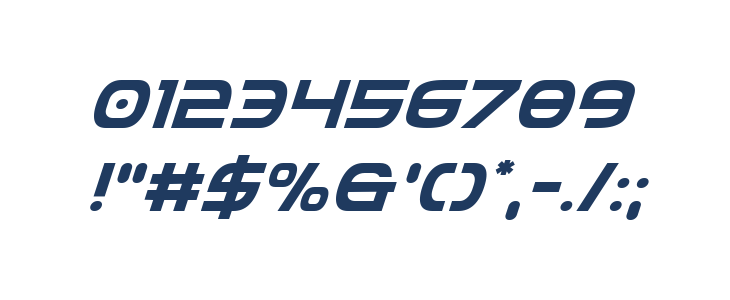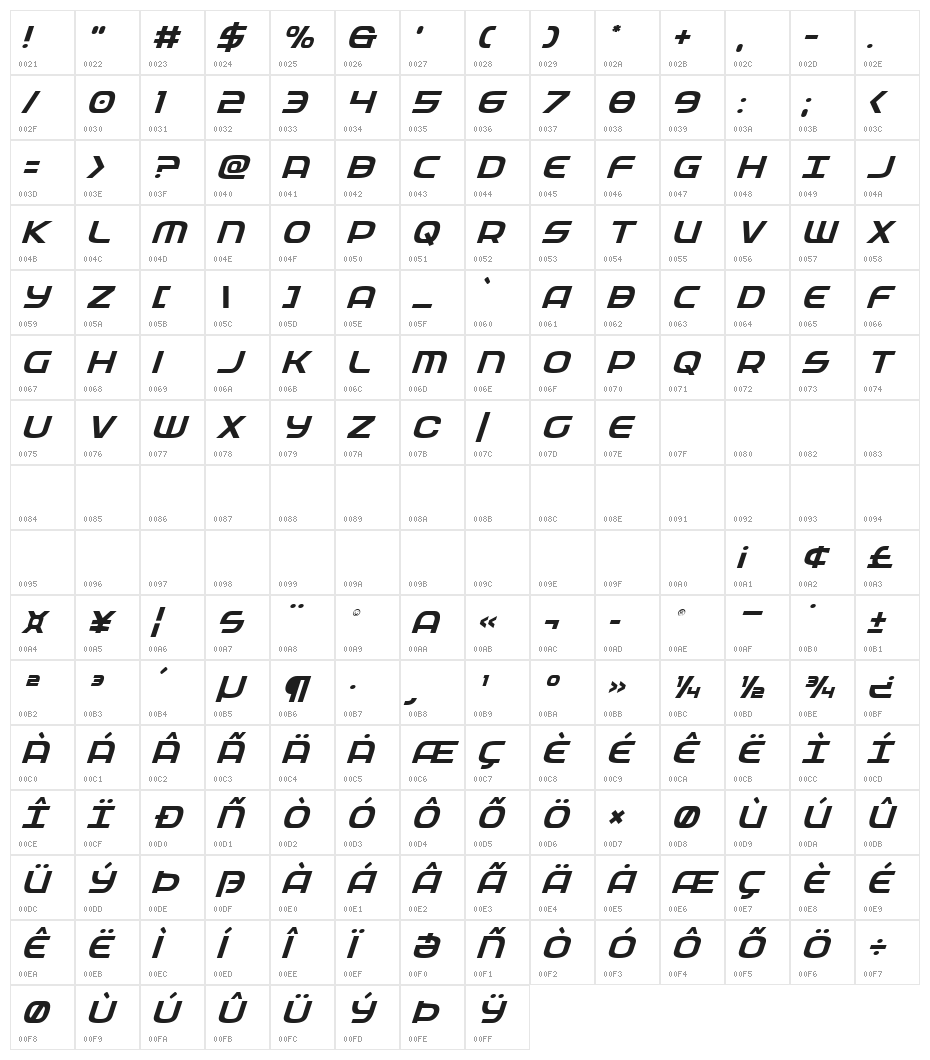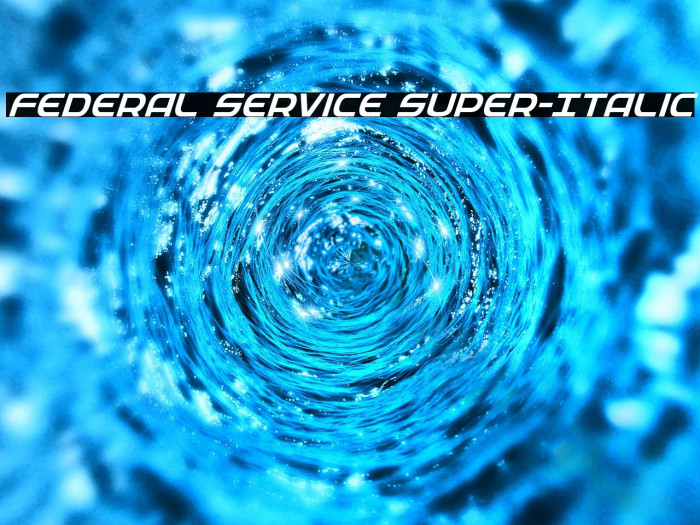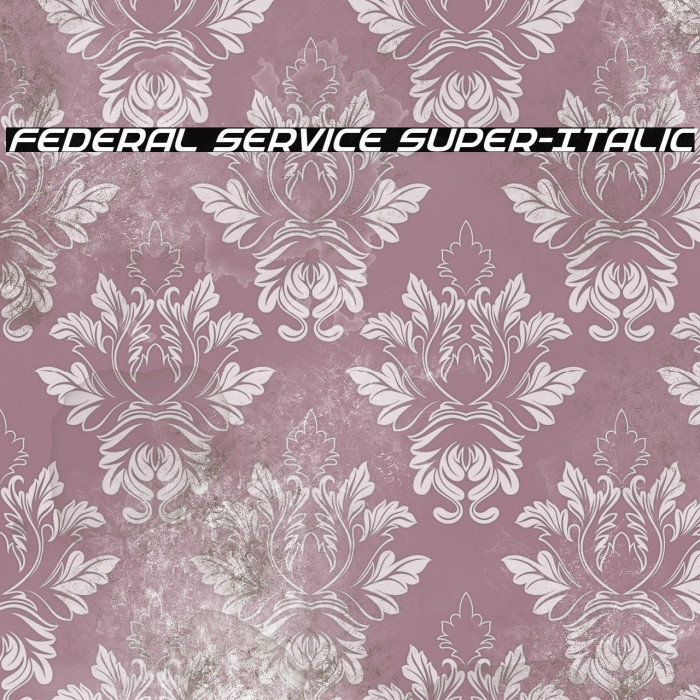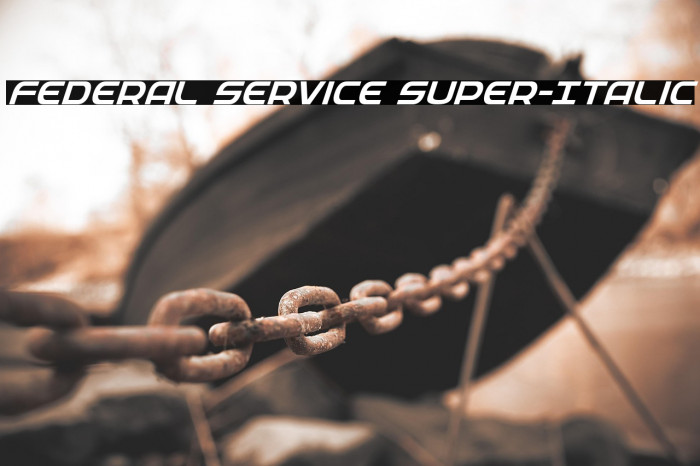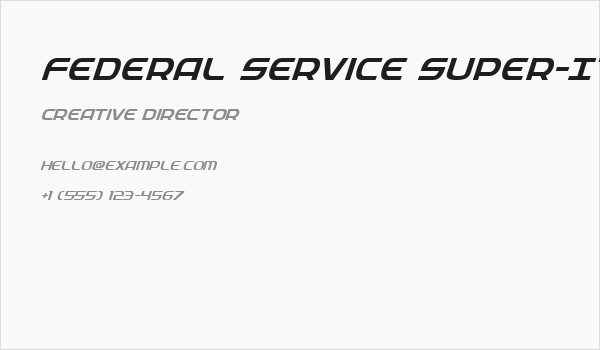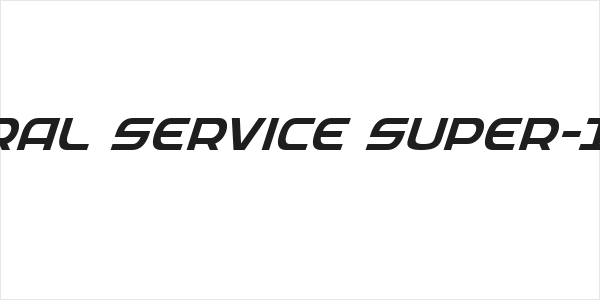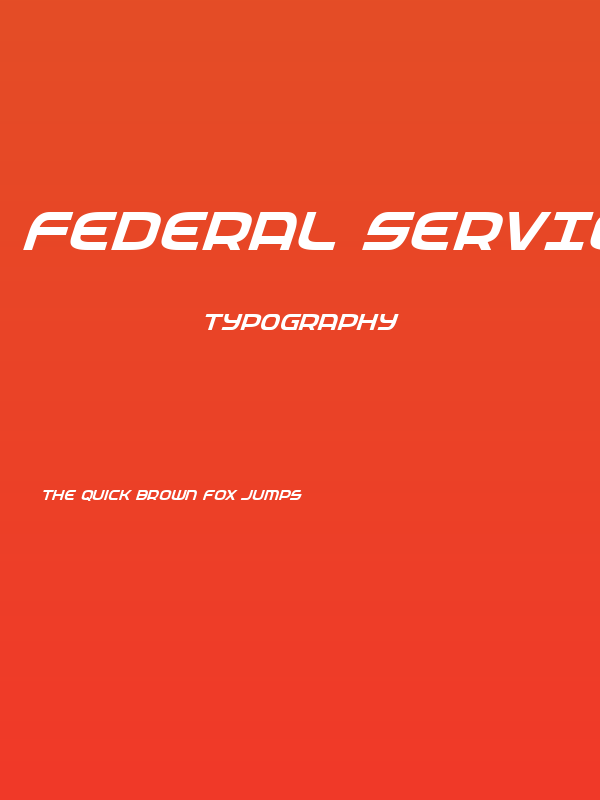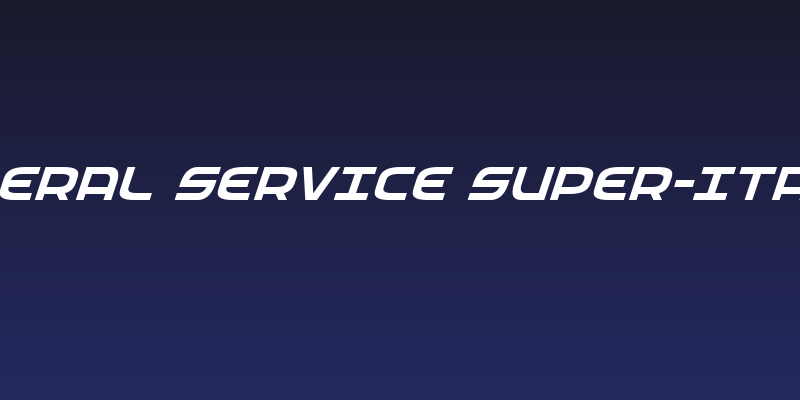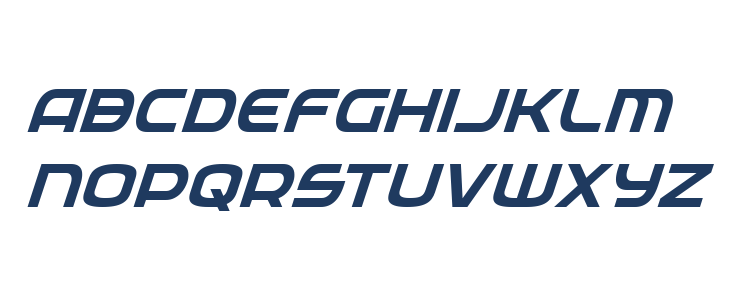
Federal Service Super-Italic Font
Federal Service Super-Italic Description
This font features a dynamic and modern design with a distinct italic slant, giving it a sense of motion and speed. The characters are bold and slightly condensed, with smooth curves and sharp edges that create a sleek and futuristic appearance. The uppercase and lowercase letters maintain a consistent style, while the numerals and special characters complement the overall aesthetic. The font's design is clean and legible, making it suitable for various applications where a contemporary and energetic look is desired.